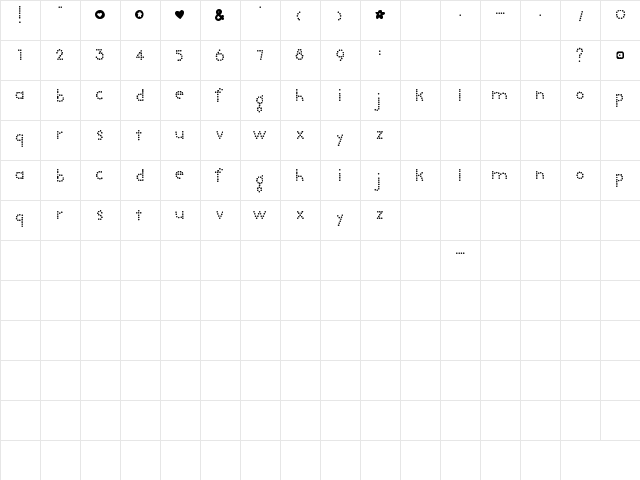
Tootlebug Regular Font Preview
Tootlebug Regular
Design Context for Tootlebug Typeface
Tootlebug is a composed and adaptable typeface that performs quietly and consistently across a wide range of design contexts.